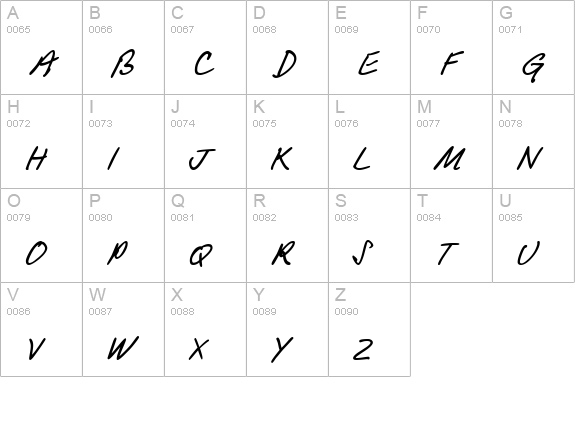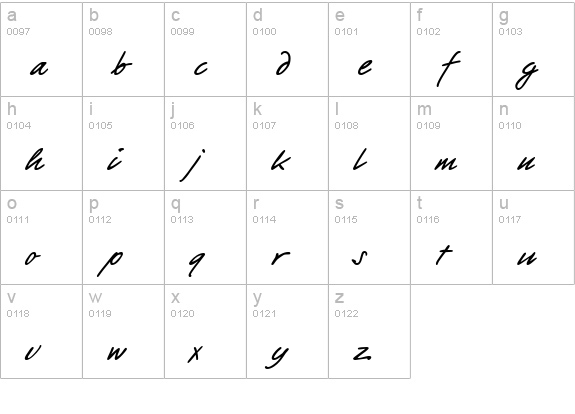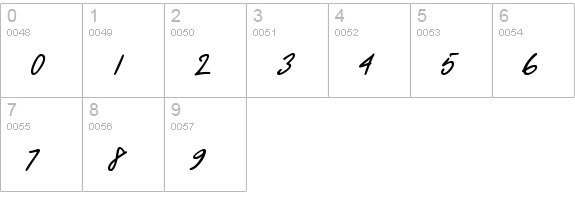
Barguzin Font Details
Barguzin font is a stunning typeface that exudes elegance and sophistication. With its sleek lines and modern design, this font is perfect for adding a touch of class to any project. The clean and timeless look of Barguzin font makes it versatile and suitable for a wide range of applications, from branding to editorial design. What makes Barguzin font even more appealing is that it is available for free download at FontsMarket.com. This means that you can easily access this beautiful font and use it in your projects without any cost. The convenience of being able to download Barguzin font for free makes it a valuable asset for any designer looking to elevate their work with a touch of style and refinement.